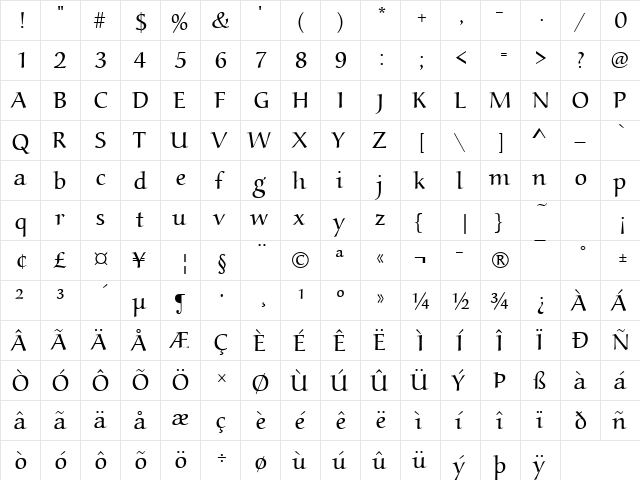
AucoinLight Regular
Design Context for AucoinLight Typeface
AucoinLight is a composed and adaptable typeface that performs quietly and consistently across a wide range of design contexts. Its slender proportions lend an understated elegance to any composition.
Pro Tip: Use AucoinLight in both headline and body roles to test its range before committing to a single application.